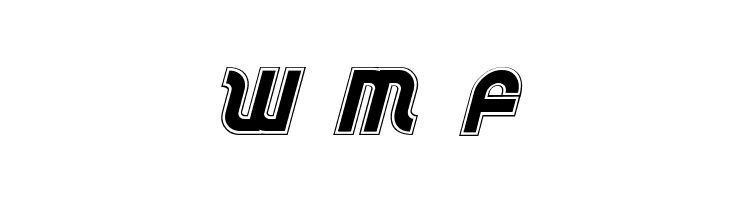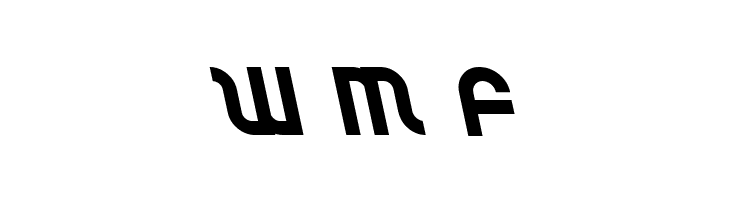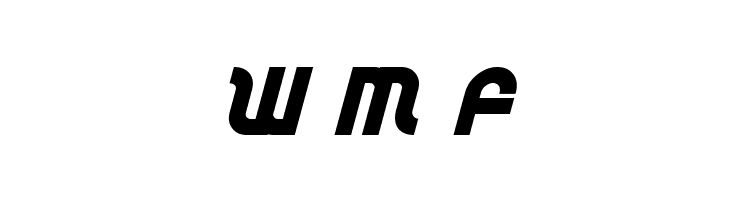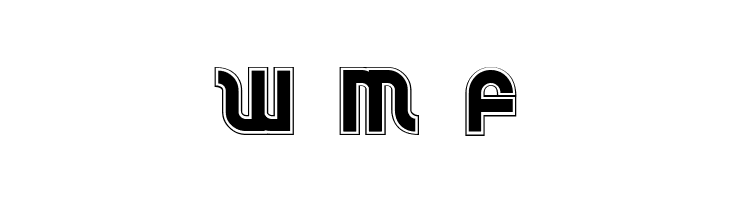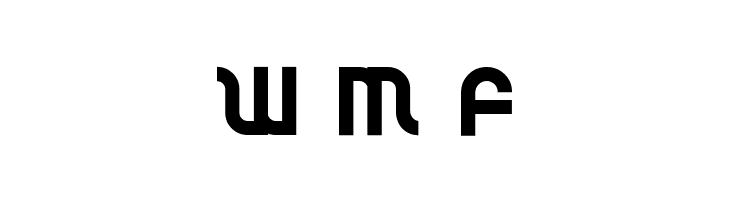
XoanaRush-Oblique Font
- Font: XoanaRush-Oblique
A bold, futuristic font with geometric shapes and a three-dimensional outline.
A bold, futuristic font with geometric and angular design.
A futuristic 3D italic font with bold, geometric outlines.
A bold, futuristic font with geometric shapes and expanded width.
A bold, futuristic font with geometric shapes and dynamic style.
A bold, futuristic font with geometric outlines and a modern aesthetic.
A bold, futuristic font with geometric shapes and sharp angles.